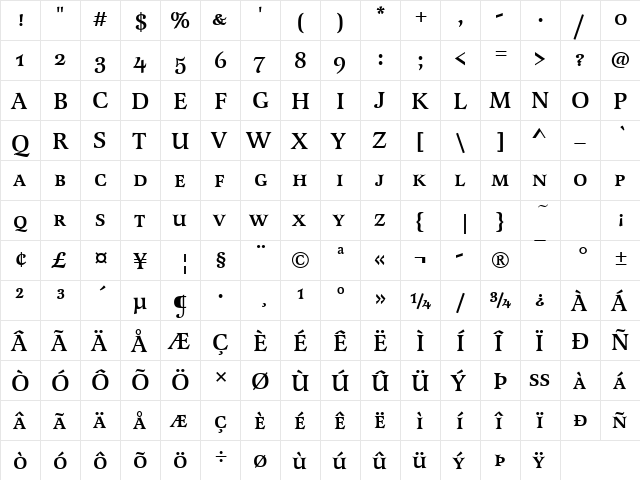
Latienne Becker Caps Med Regular
Design Context for Latienne Becker Caps Med Typeface
Latienne Becker Caps Med takes a measured approach to typography — its balanced proportions and neutral character make it a reliable workhorse for both digital and print work.